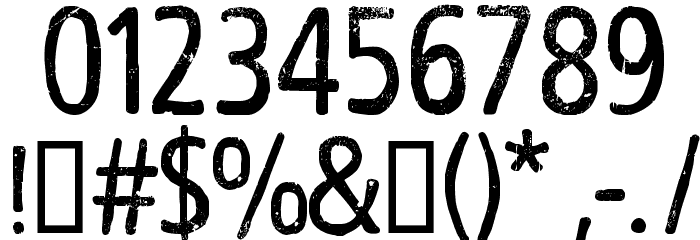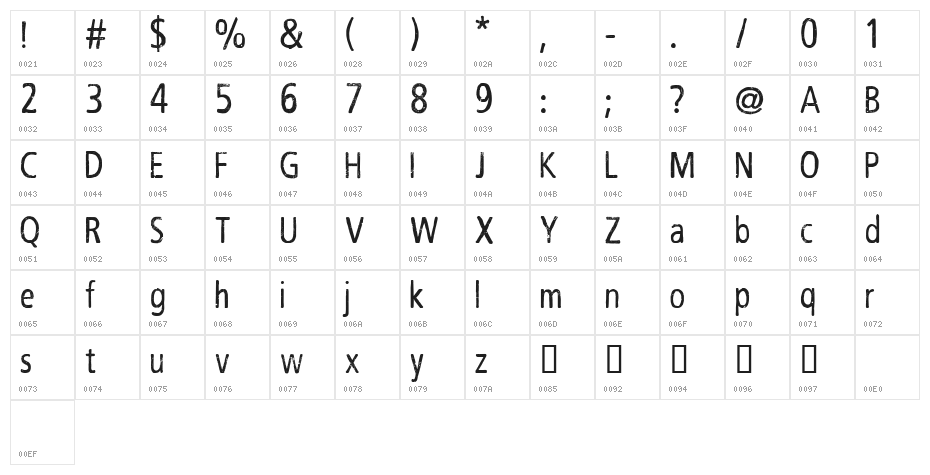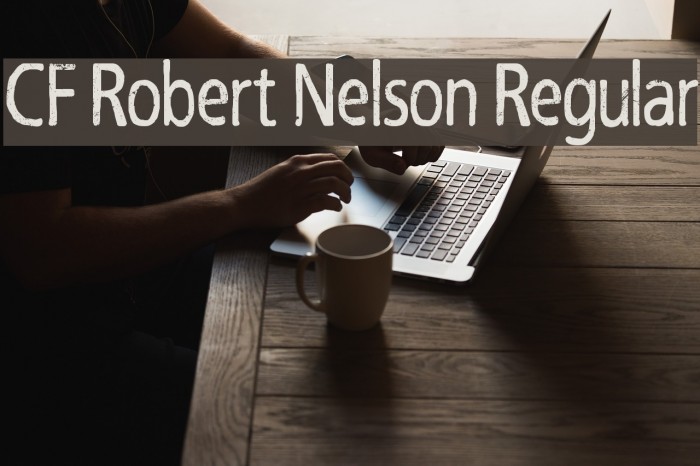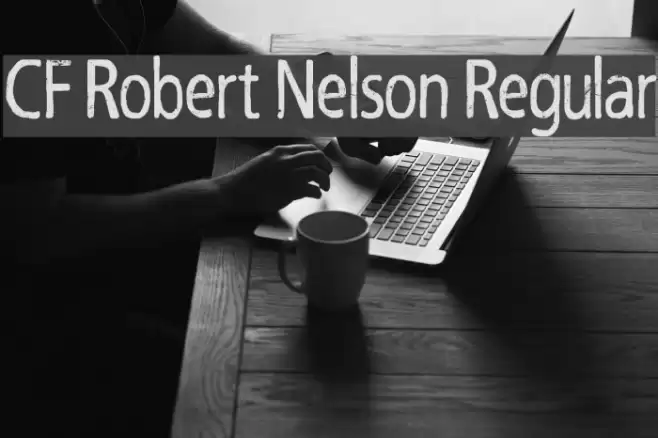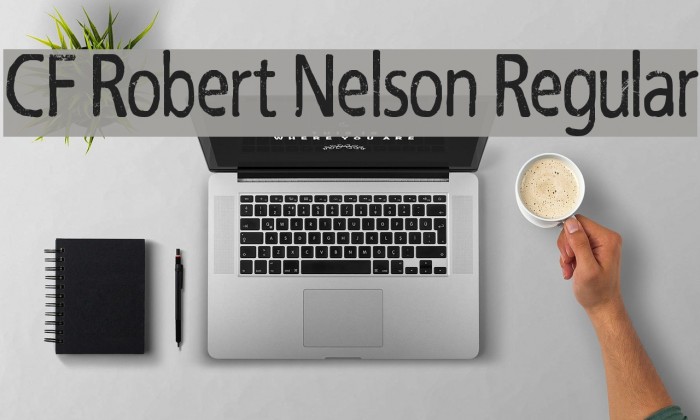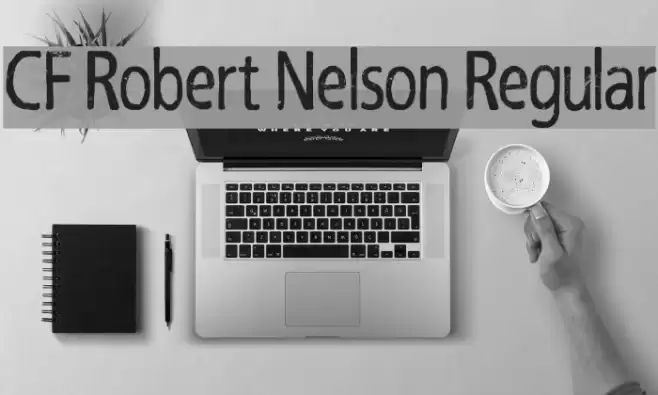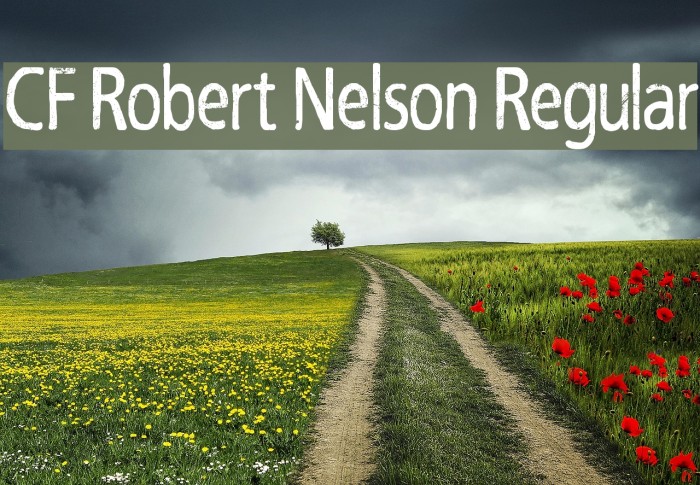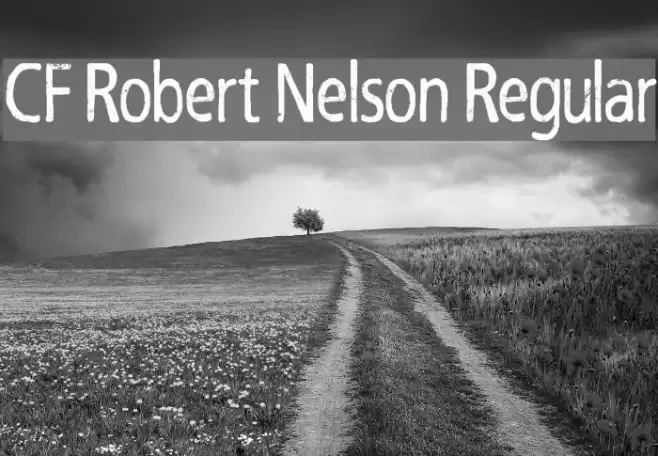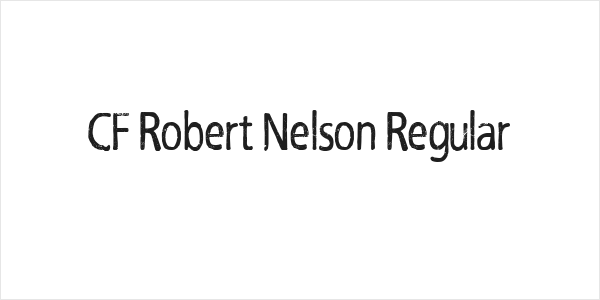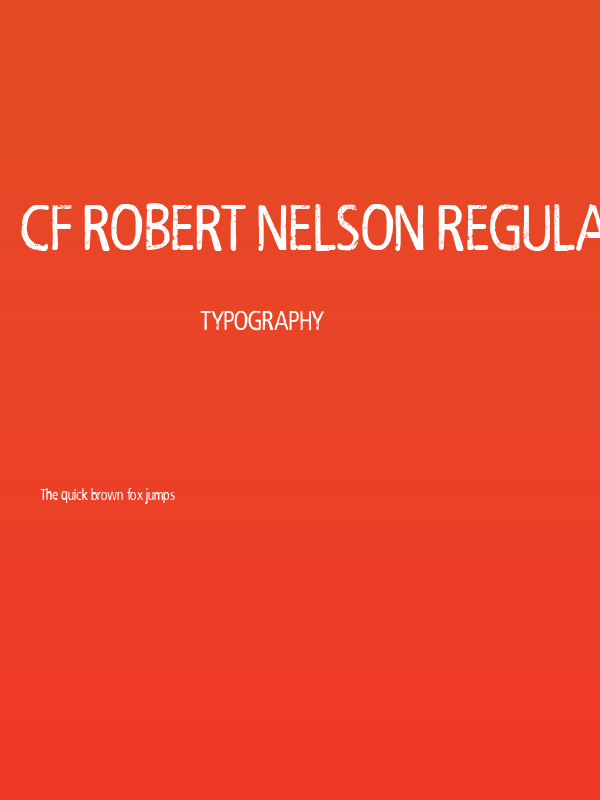
CF Robert Nelson Regular Font
CF Robert Nelson Regular Description
This font features a distressed, textured appearance that gives it a vintage and rugged feel. The characters are bold and slightly condensed, with a consistent width that maintains readability despite the worn effect. The uppercase and lowercase letters are well-proportioned, and the numerals are clear and distinct. Special characters are included, maintaining the same distressed style, which adds to the overall cohesive look. This font is ideal for projects that require a rustic or industrial aesthetic, such as posters, branding, or packaging designs.
| Proposed Projects | Ideal for vintage posters, branding, packaging, and industrial-themed designs. |